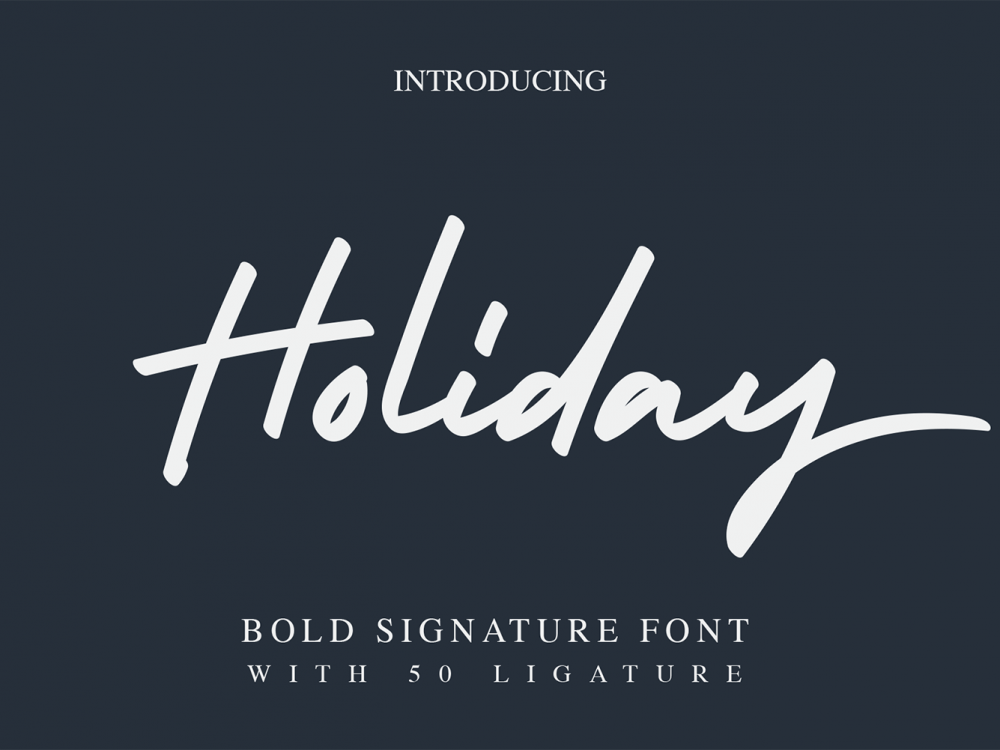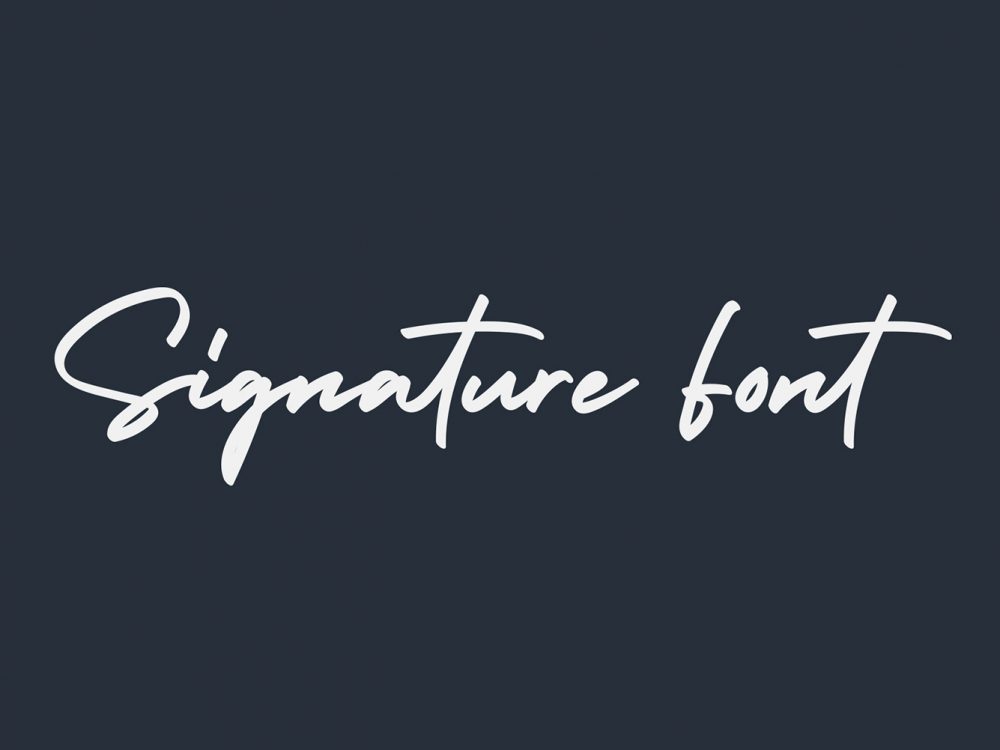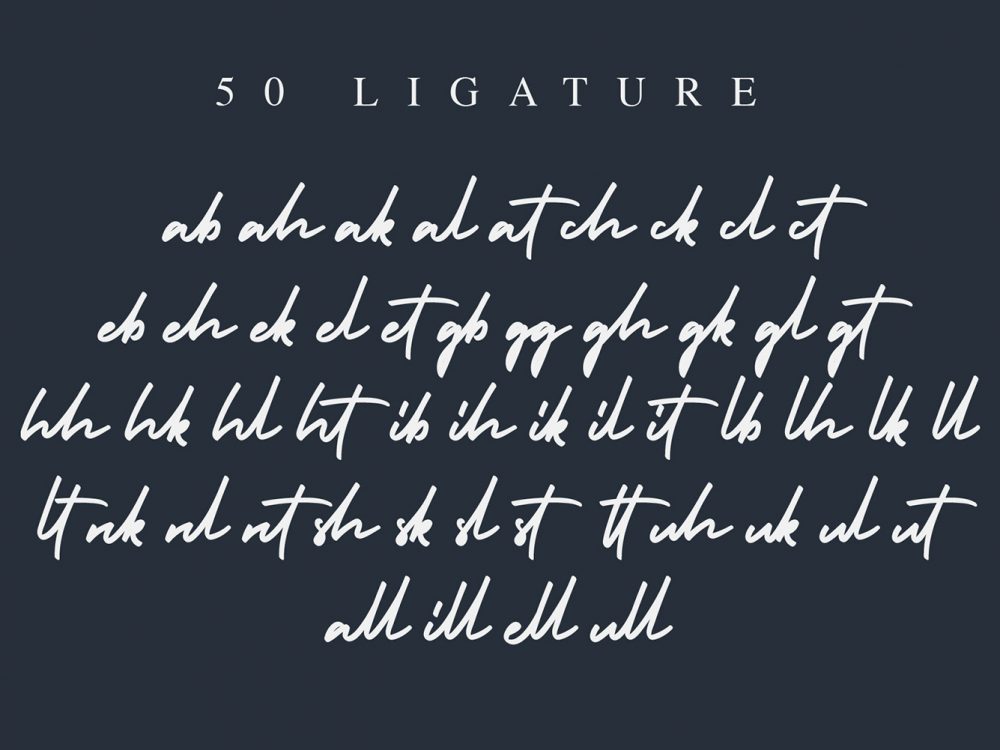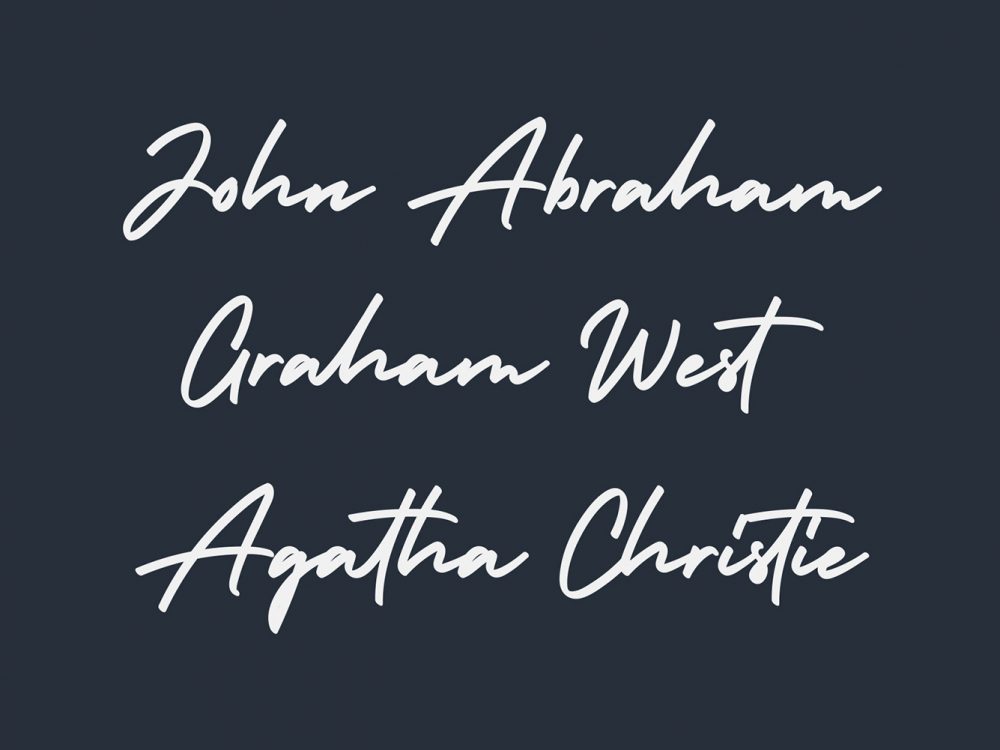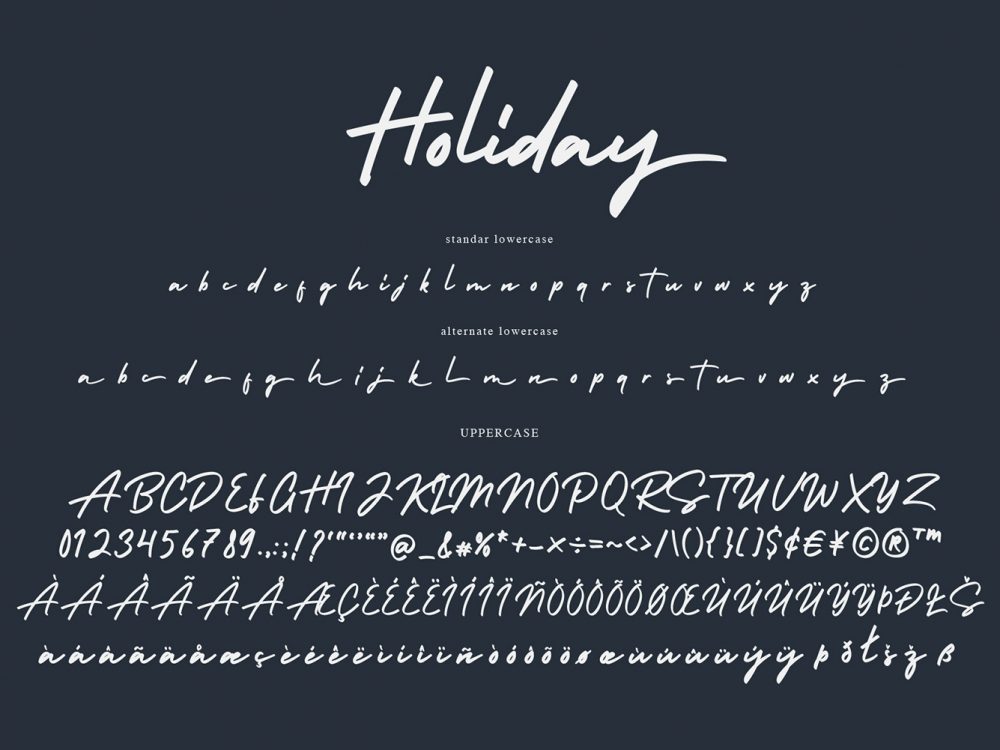
Holiday Free Font
Holiday Free Font is a stylish handwritten typeface that features an elegant calligraphic style and will help you create unique design projects and enhance your professional level. Use this font to create memorable posters, wedding invitations, cards, branding, flyers, and more. Improve the quality and increase the popularity of your design projects using this font. If you like it don’t forget to check out the full version.